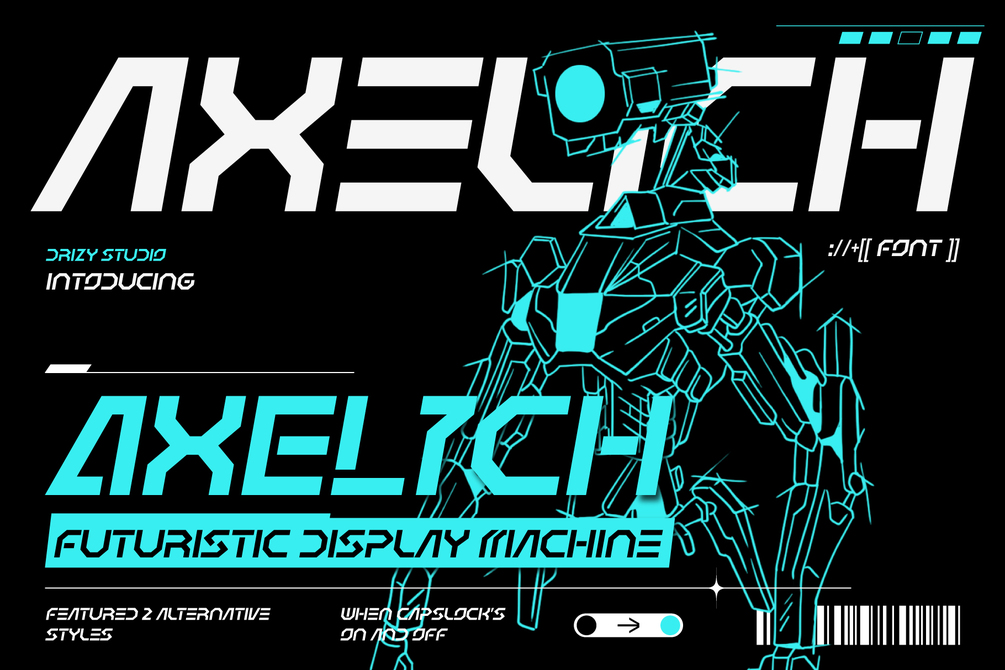
Axelich – Futuristic Display Machine Font
Axelich is a revolutionary typeface that redefines the boundaries of design, blending cutting-edge innovation with bold creativity. This Machine Font is meticulously crafted to deliver a striking visual impact, seamlessly combining sleek technological aesthetics with unparalleled readability. What sets Axelich apart is its unique ability to infuse a Monster & Kaiju vibe, giving your projects a powerful, larger-than-life presence. Its sharp, angular forms and bold contours echo the energy of towering creatures and epic battles, making it the ideal choice for projects that demand intensity and drama. Whether you’re designing futuristic branding, electrifying movie titles, immersive video game interfaces, or event posters with a sci-fi edge, Axelich ensures your work stands out with confidence and authority. This typeface is not just about design—it’s about creating an unforgettable experience. Let Axelich – Futuristic Display Machine Font transform your creative vision into a bold statement that captivates, inspires, and leaves an indelible mark on your audience. It’s more than a font it’s the future of storytelling through design.